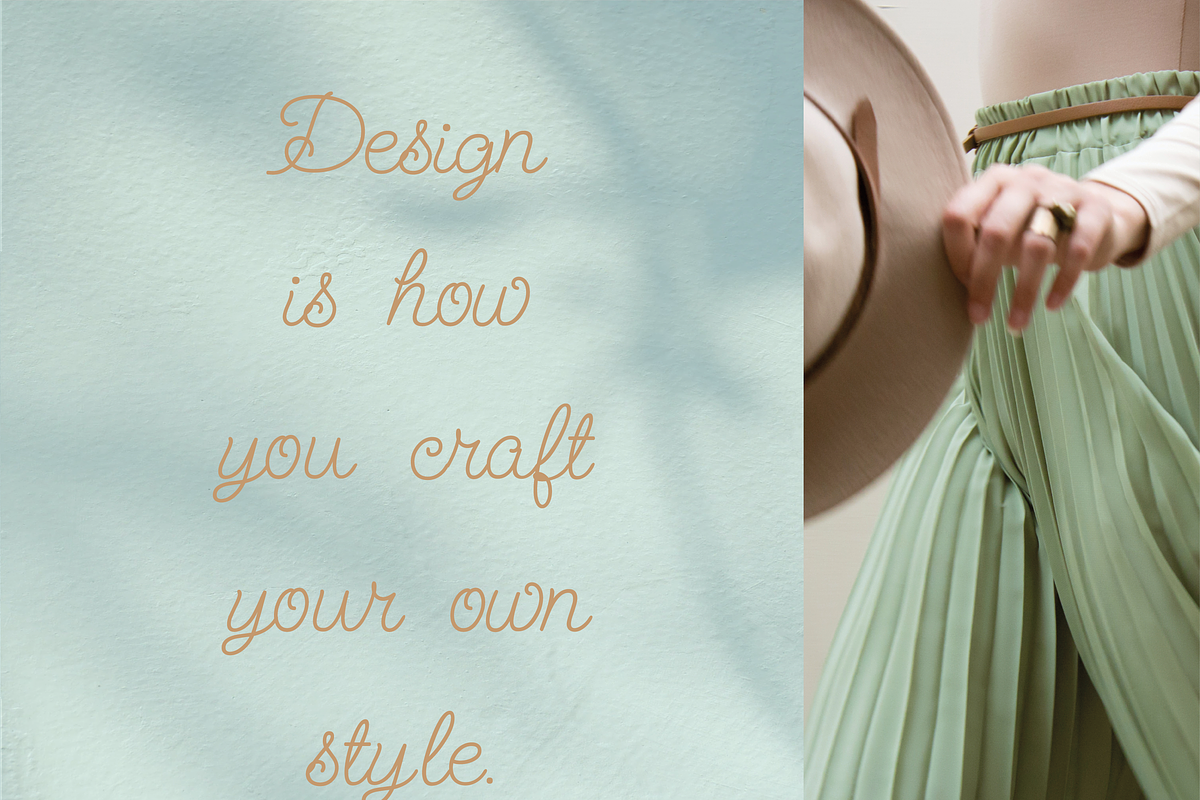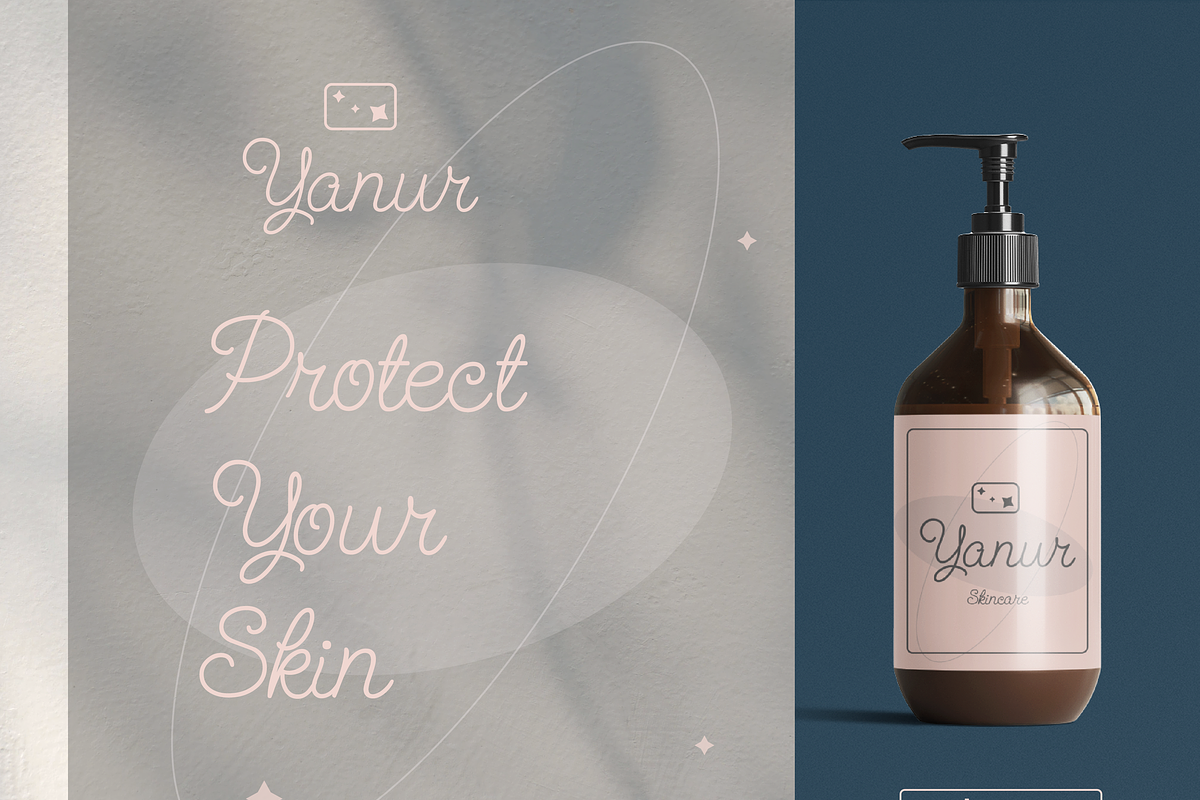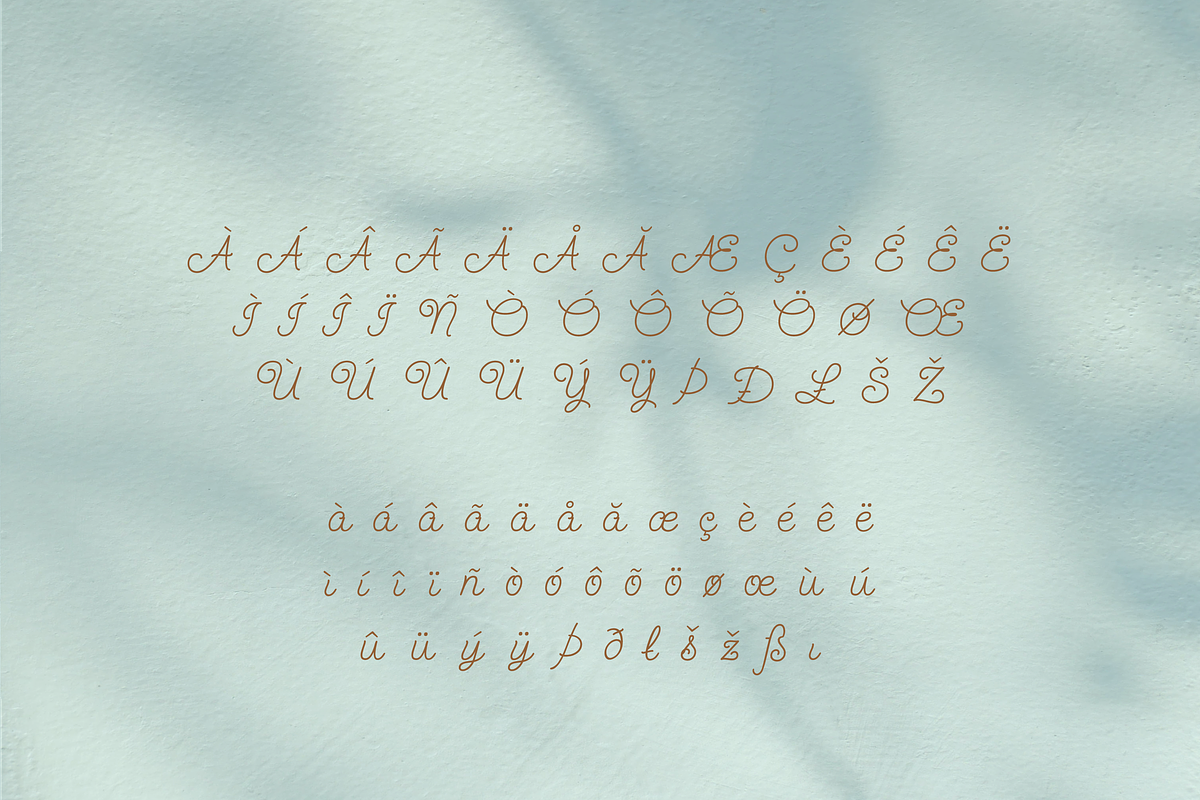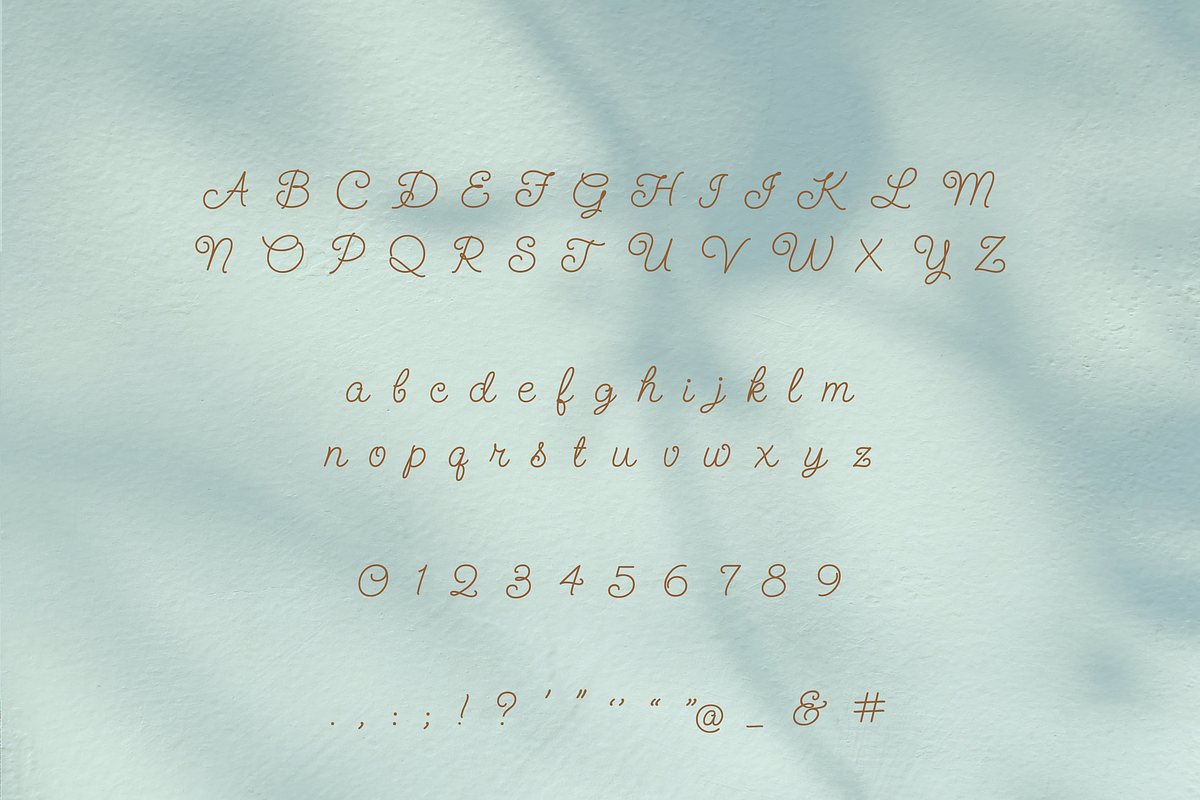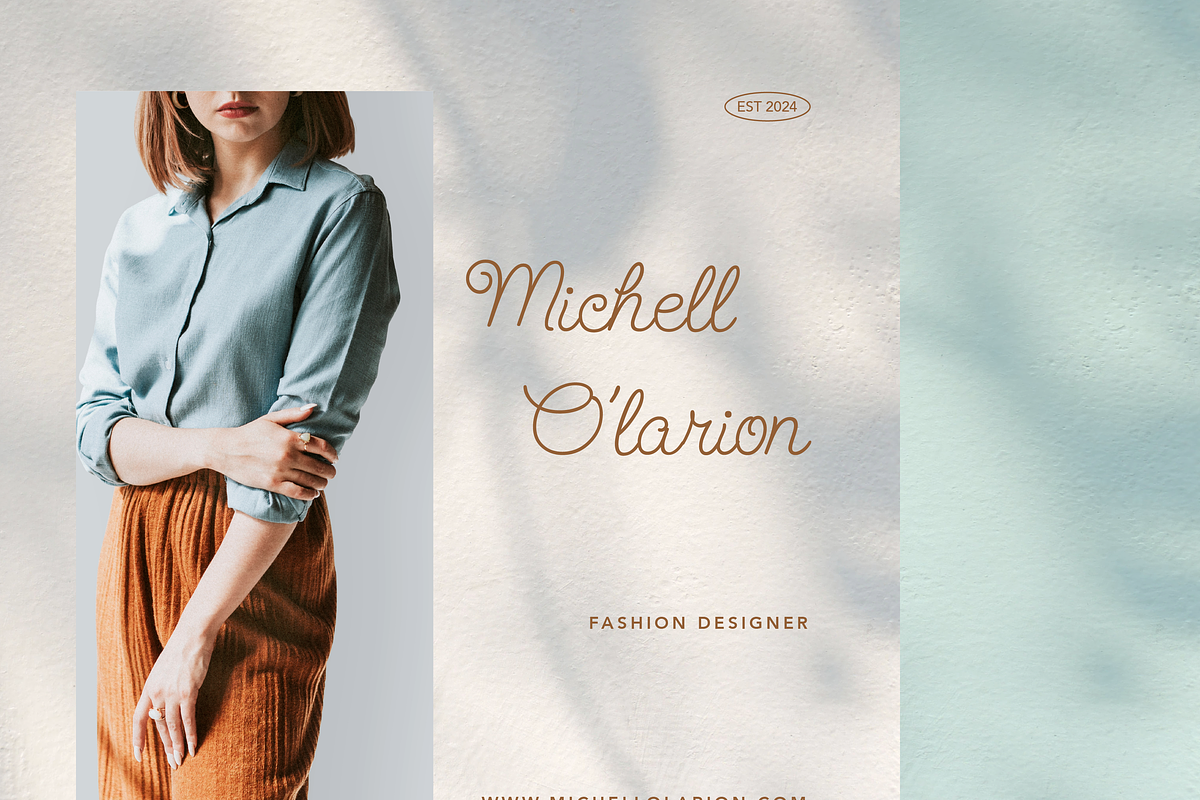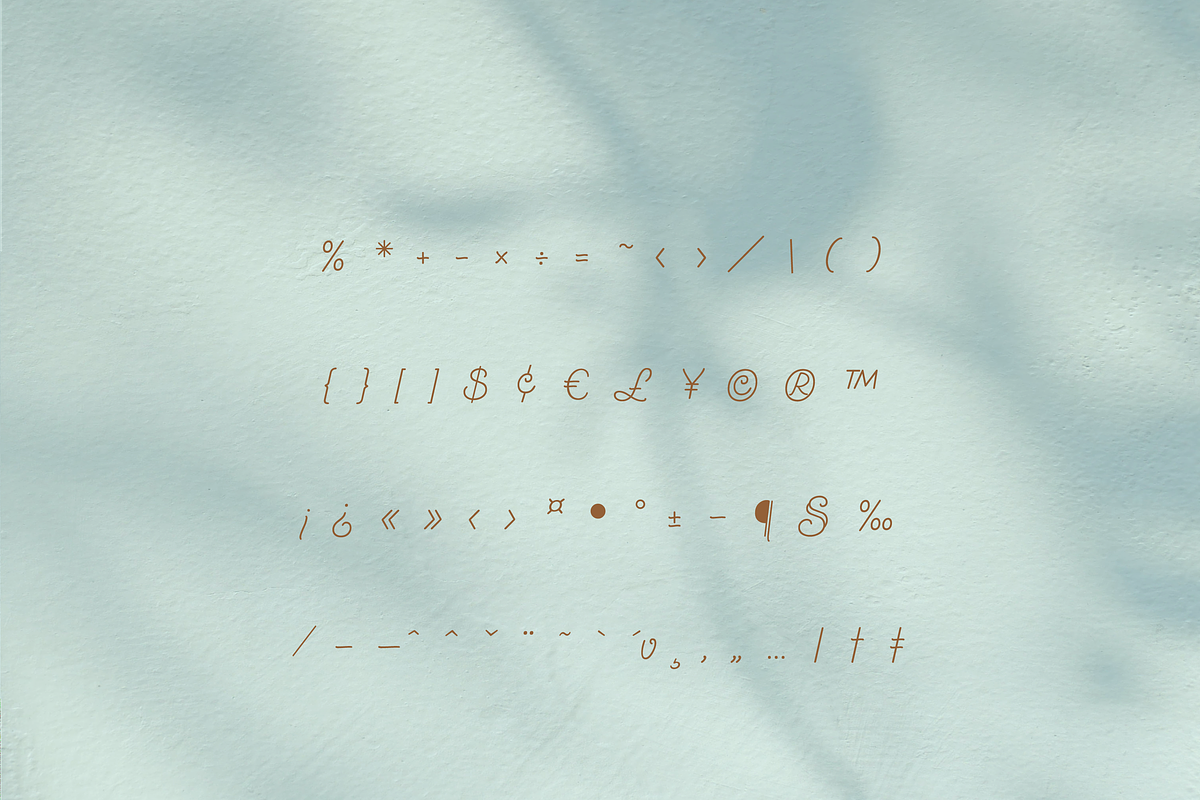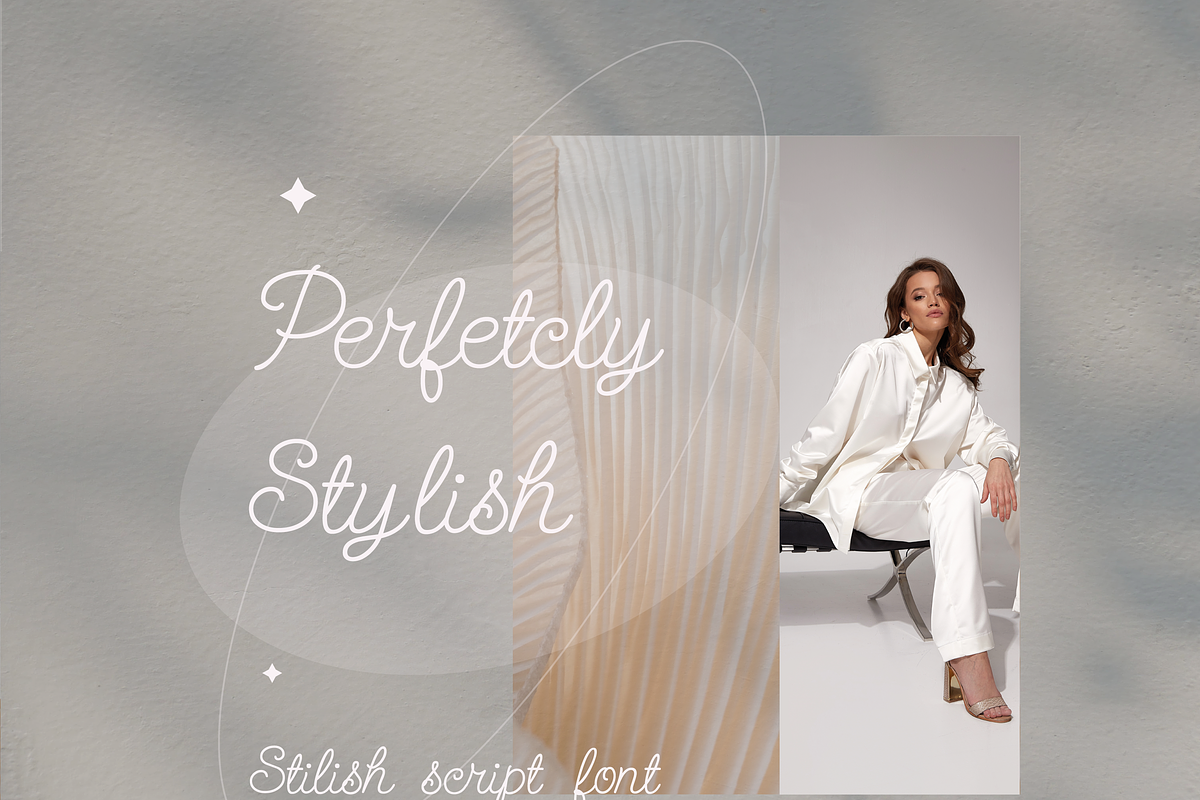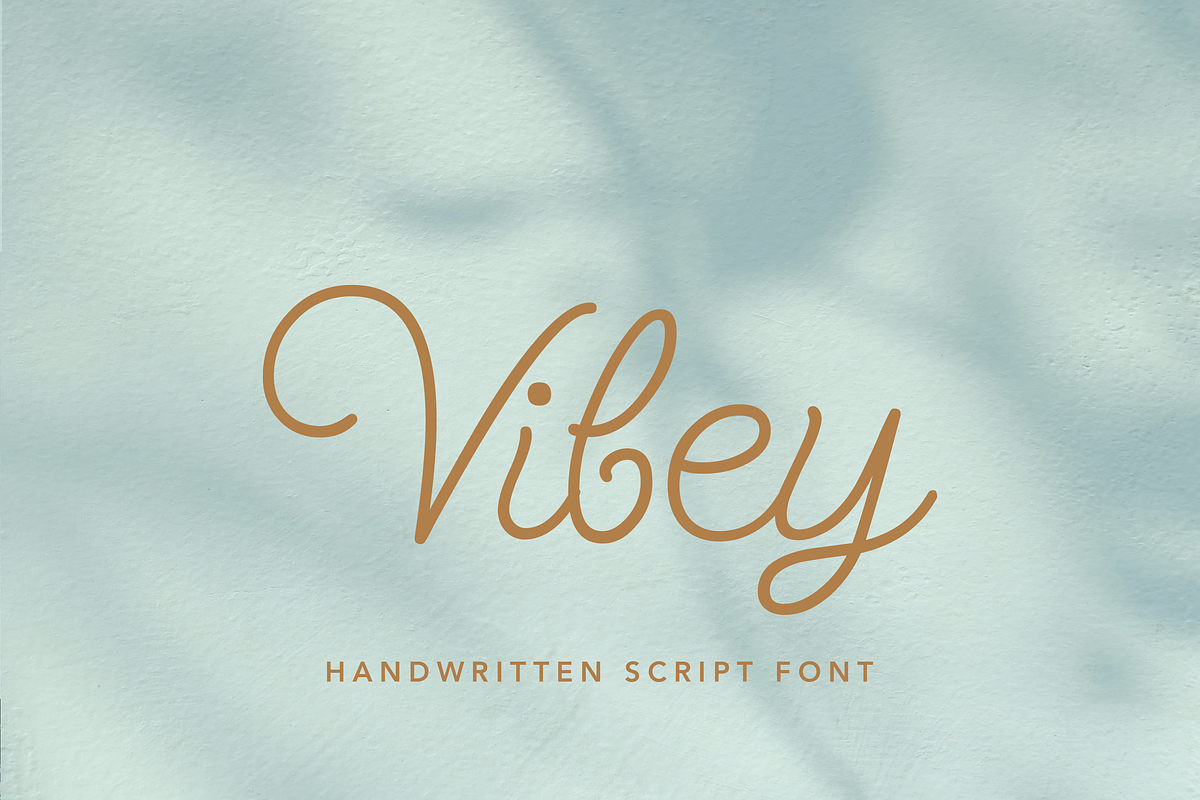
Vibey Font | Handwritten Script Font
Vibey is a charming mono-weight script font that strikes the perfect balance between playful and sophisticated. With its clean connecting strokes and highly legible design, Vibey adds a touch of nostalgia while maintaining an elevated, refined quality suitable for a more mature audience. The cursive style gives it a graceful flow, while the old-school juvenile vibe brings a sense of fun and lightheartedness. Vibey's delicate appeal makes it ideal for projects that call for a friendly yet polished look.
Vibey is the perfect font for designs that want to convey warmth and elegance while keeping a fun, approachable vibe. It works beautifully for a wide range of projects, from branding to invitations, offering a timeless, inviting style.